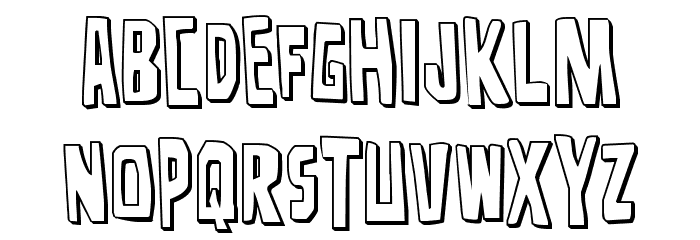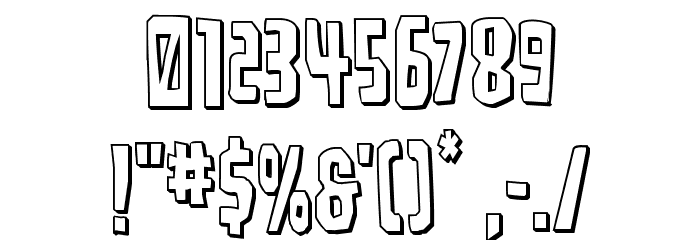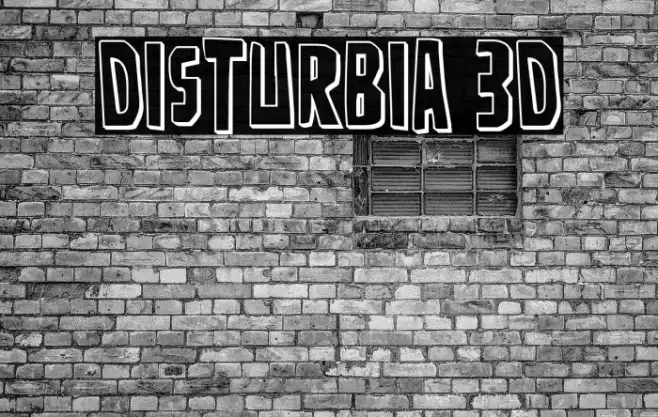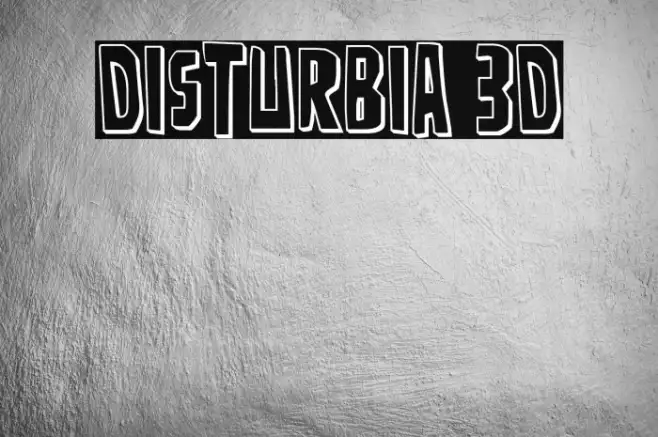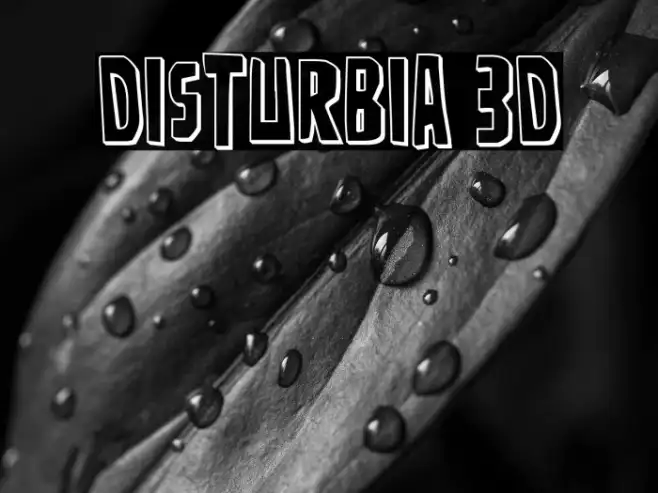
Disturbia 3D Font
This font features a bold, playful 3D effect with a hand-drawn aesthetic. The characters are outlined with a thick, uneven stroke, giving them a dynamic and energetic appearance. The uppercase and lowercase letters are consistent in style, maintaining a quirky and informal vibe. The numbers and special characters follow the same design, ensuring uniformity across the font. The overall look is reminiscent of comic book lettering, making it ideal for projects that require a fun and eye-catching typeface.
A bold, playful 3D font with a hand-drawn, comic book style.
- Proposed Projects: Ideal for comic books, children's books, posters, and playful branding.
- Overall Style: Playful, Comic
- Use Case: Headlines, Posters, Branding